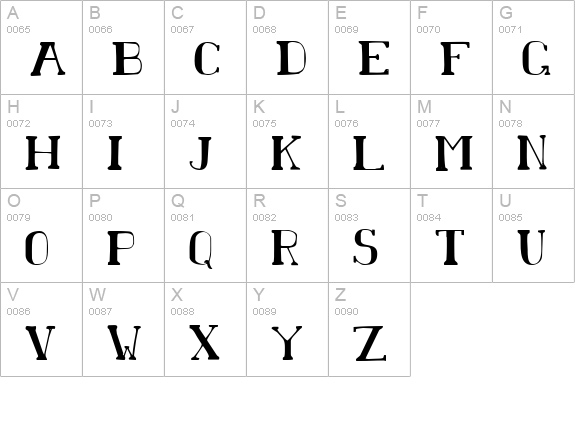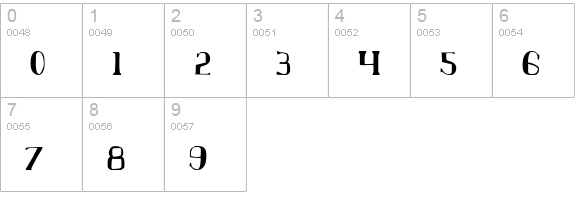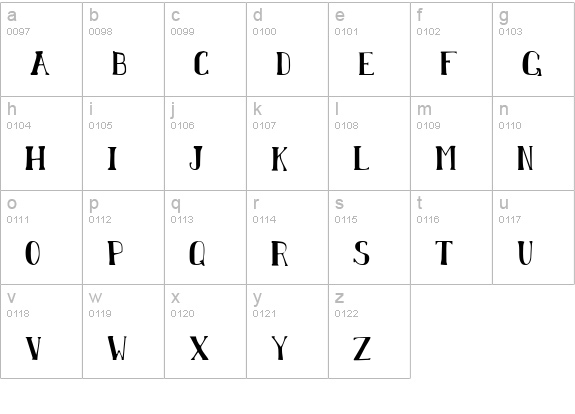
Chardin Doihle Condensed is a distinctive, condensed-width variant in the Chardin typeface family \xE2\x80\x94 well suited to design and typography projects.
Chardin Doihle Condensed font is a modern and sleek typeface that exudes sophistication and elegance. With its clean lines and stylish design, this font is perfect for a wide range of design projects, from branding to editorial layouts. The condensed style of Chardin Doihle adds a touch of professionalism and sophistication to any text or headline. What makes Chardin Doihle Condensed font even more appealing is that it is available for free download at FontsMarket.com. This means that you can easily access this high-quality font without any cost, making it a valuable addition to your font library. Whether you are a designer, a blogger, or a business owner, Chardin Doihle Condensed font is a versatile choice that will elevate your projects to the next level.